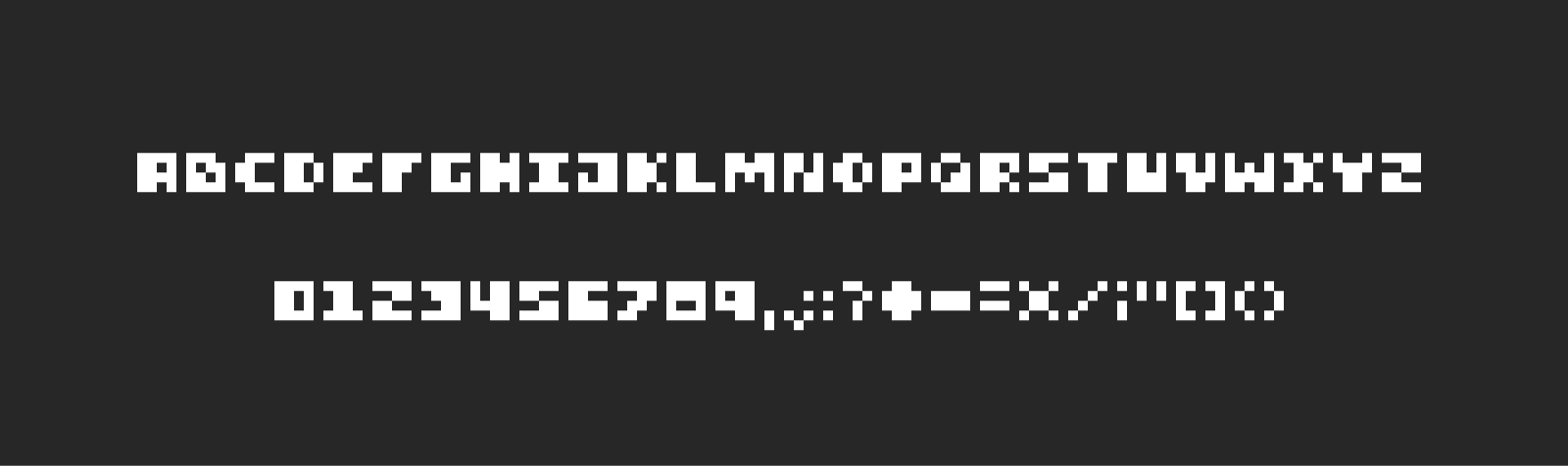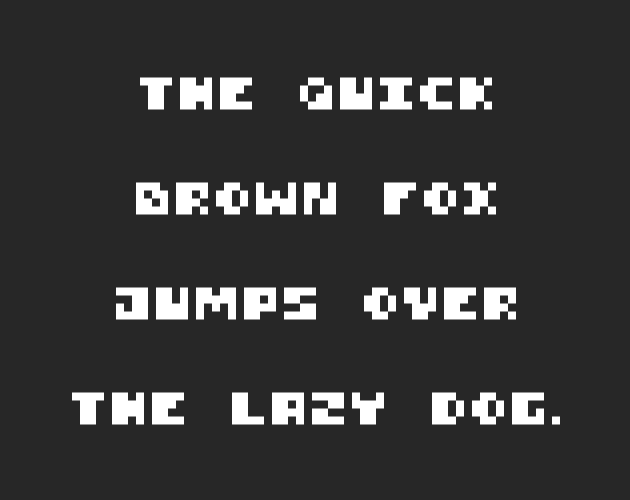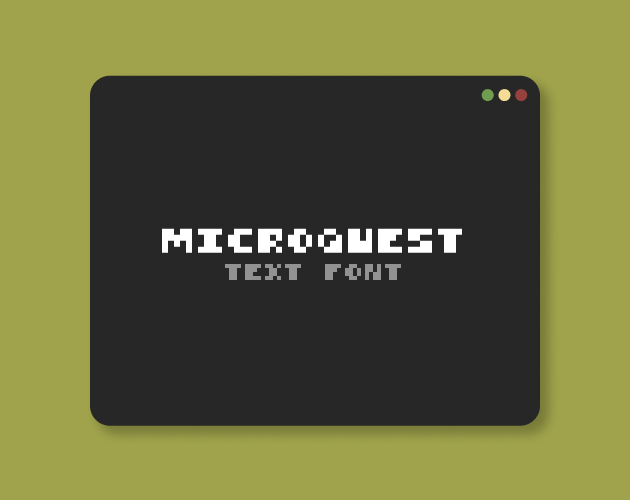
Pixel Font - MICROQUEST
MICROQUEST is a 4px tall pixel font!
Suggested size: 4pt, 8pt, 16pt, etc.
Full Character Set:
ABCDEFGHIJKLMNOPQRSTUVWXYZ
0123456789.,;:?!"'+-=*%_() []